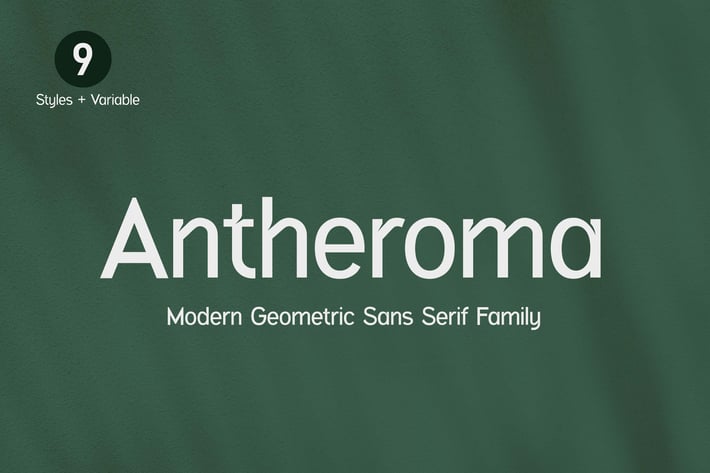
Antheroma Modern Geometric Sans Serif Family Font
Introducing our new product the name is Antheroma Modern Geometric Sans Serif Family Font. Antheroma Modern Geometric Sans Serif Family Font that feels beautiful classy, elegant, and modern. This font is ideally suited for a wide variety of projects, such as signature, stationery, logo, wedding, typography quotes, magazine or book covers, website headers, clothing, branding, packaging design, and more. Also, fashion-related branding or editorial design displays both masculine and feminine qualities.